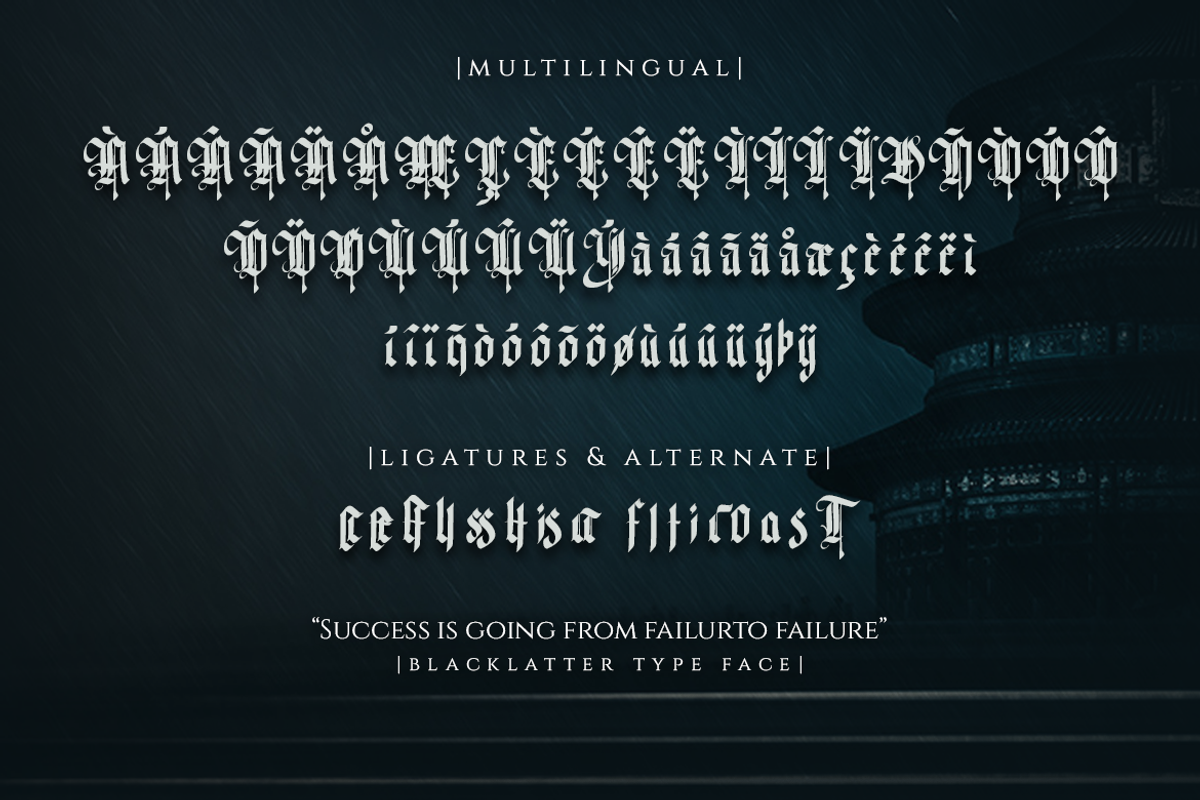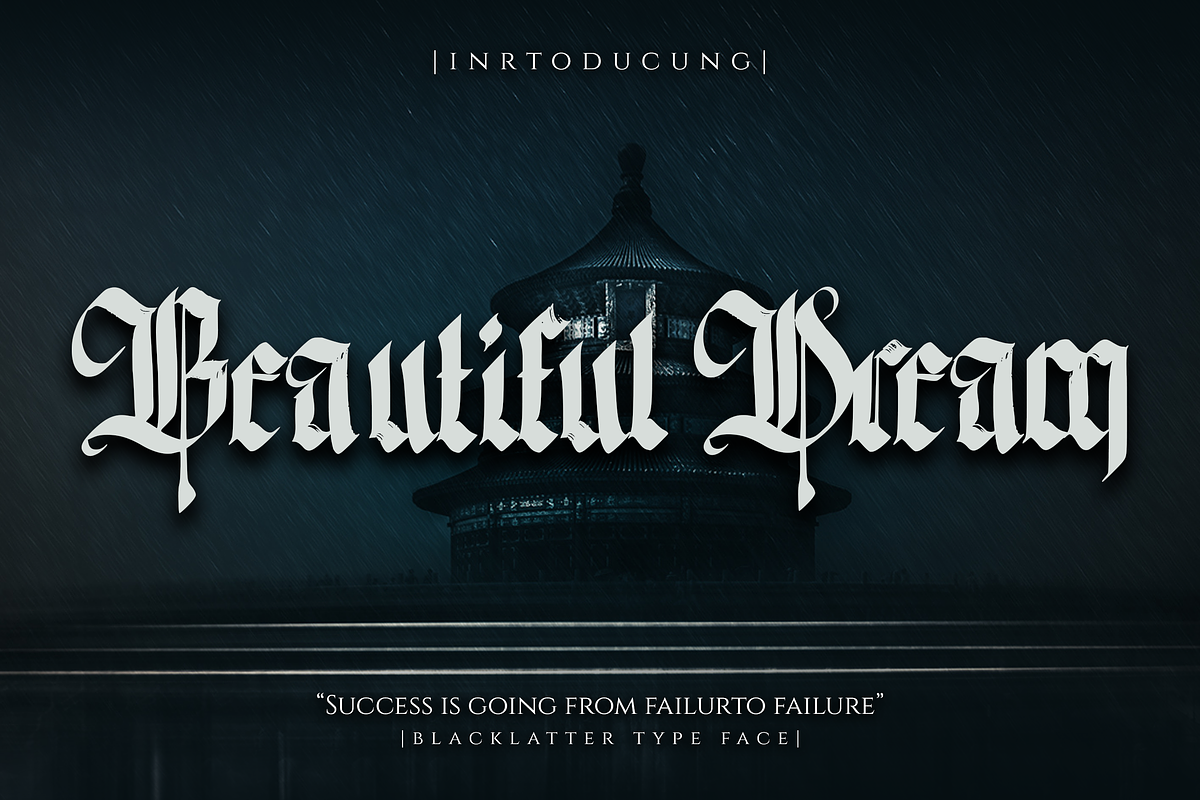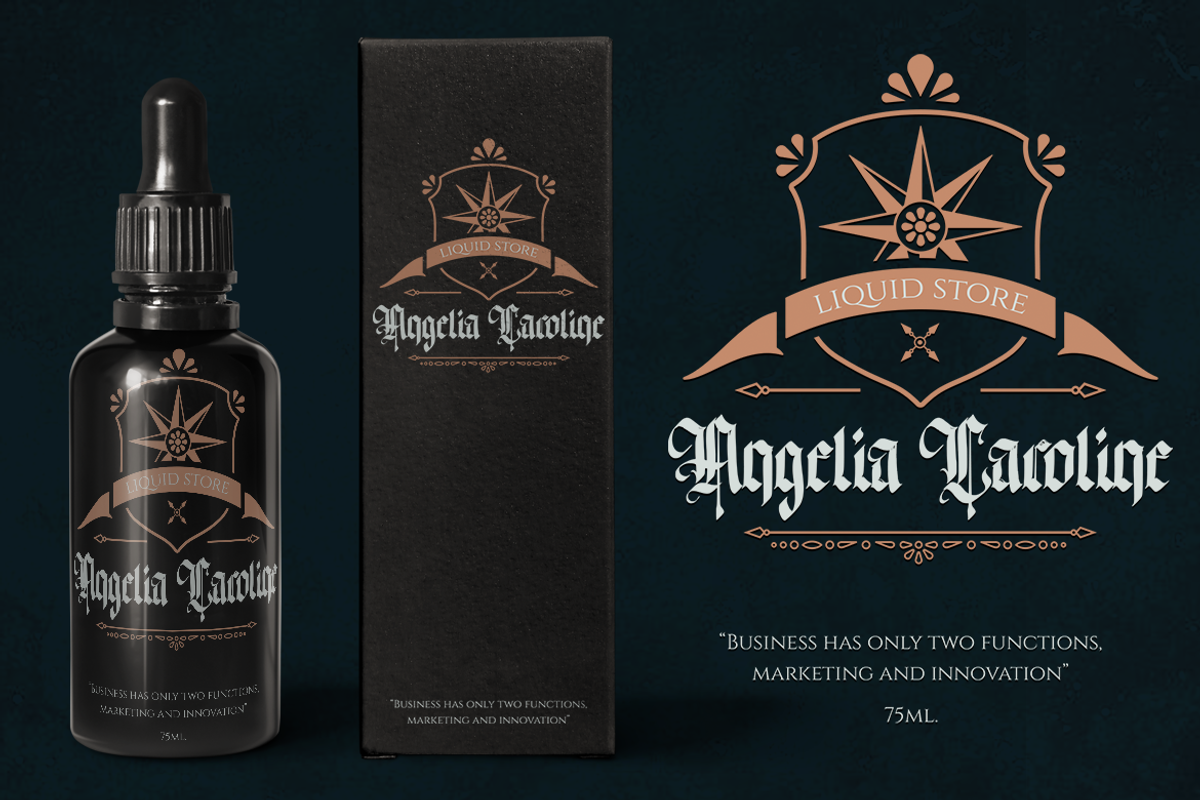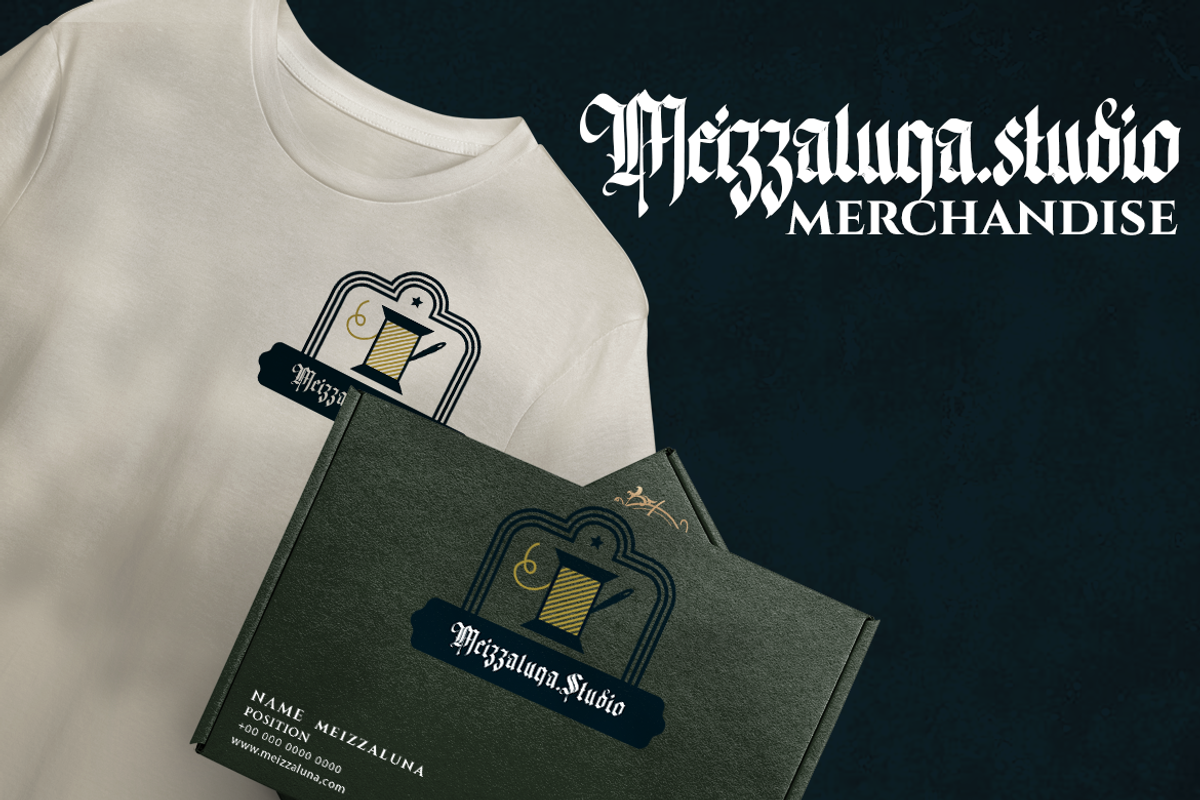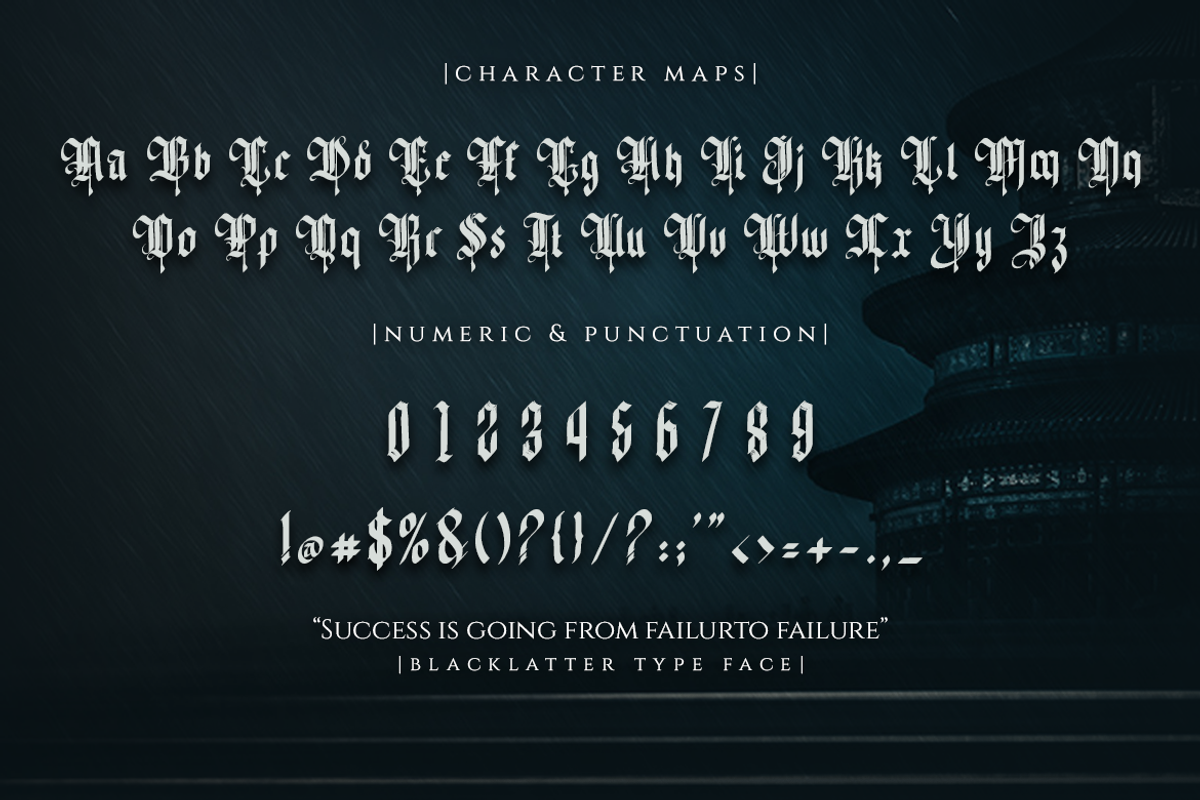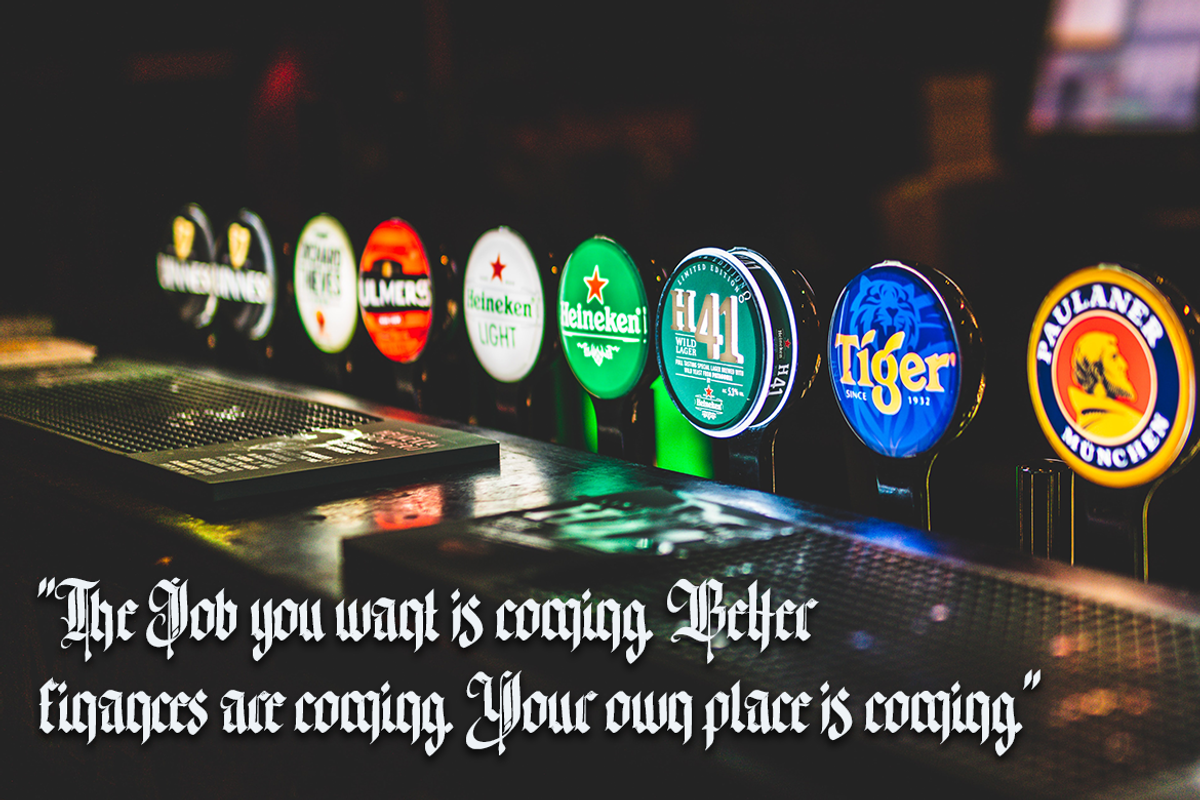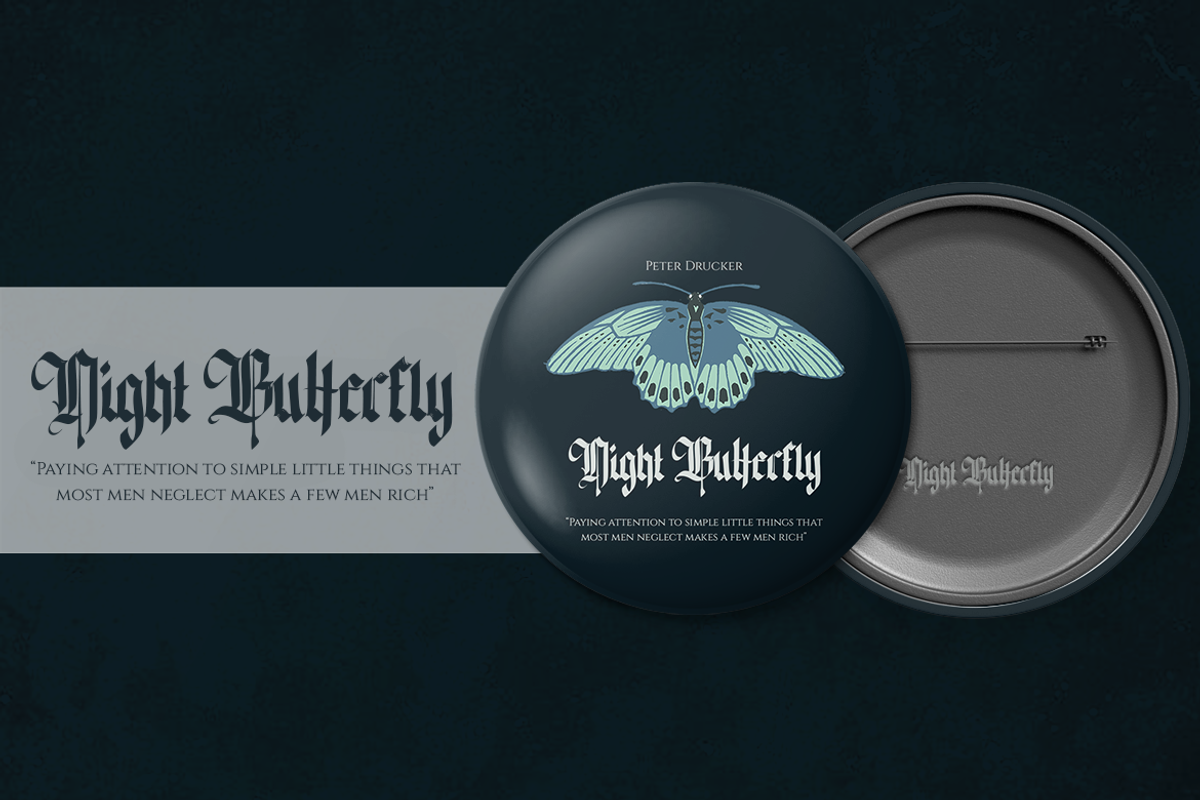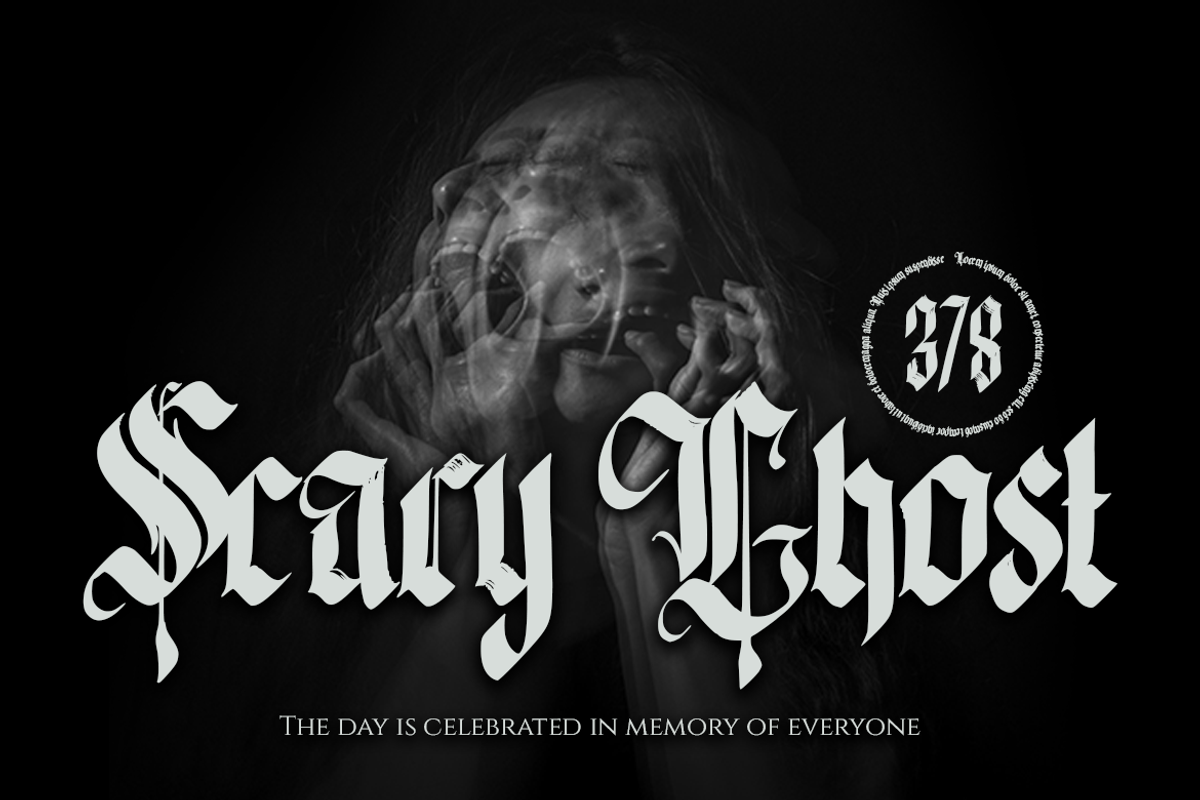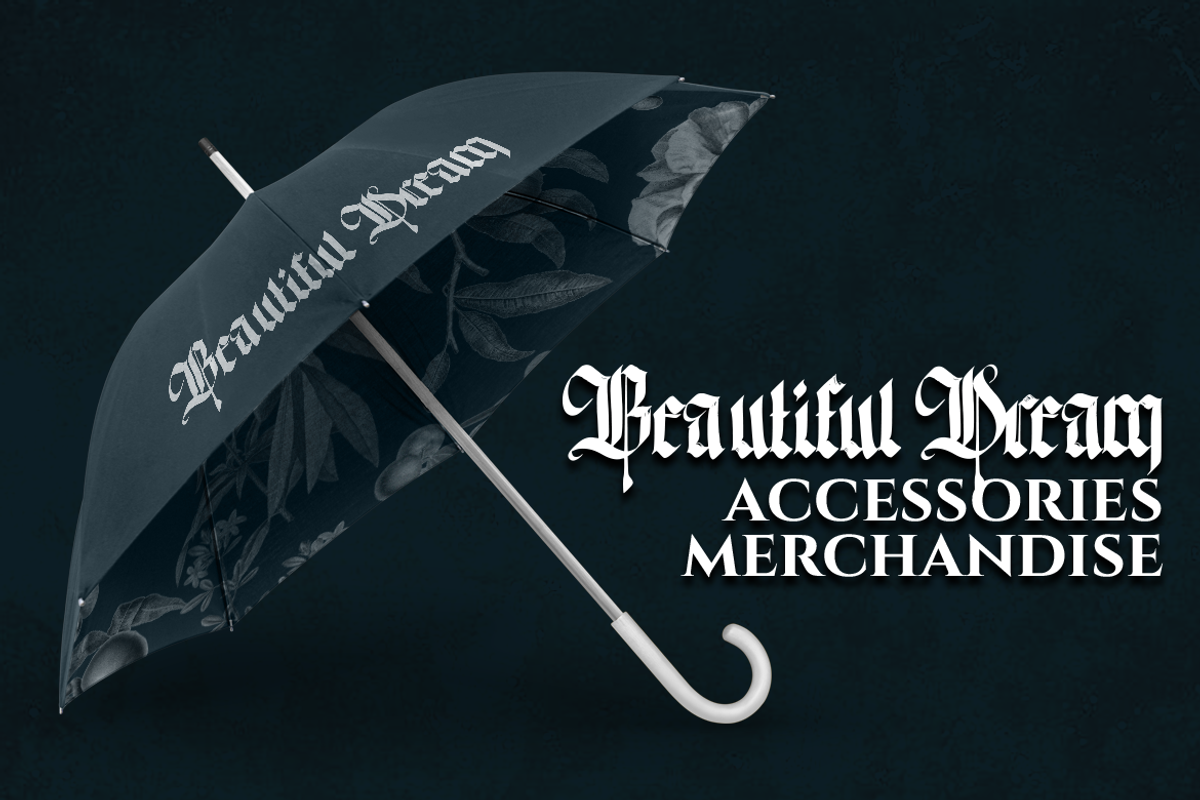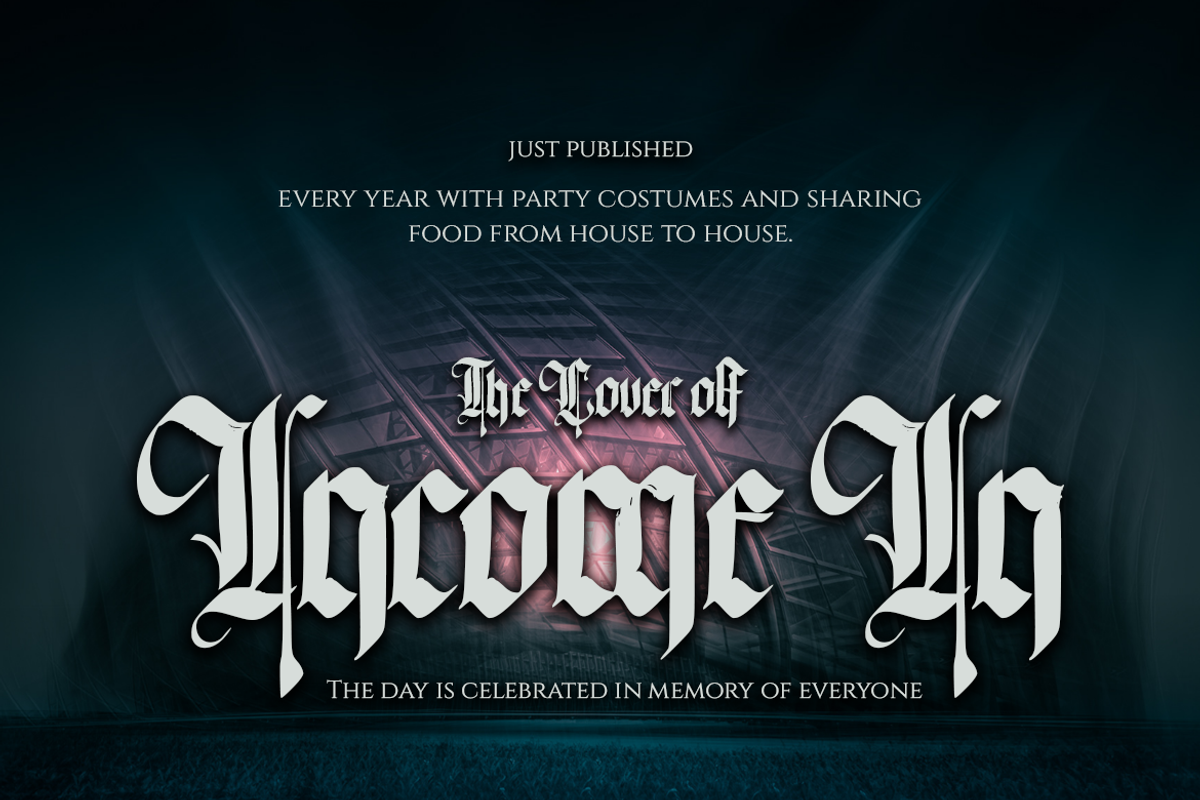
Beautiful Dream
Beautiful Dream is an elegant and classic blackletter font that will impress with its stylish features. Use it for product packaging, branding, or other projects that need bold and daring typography!